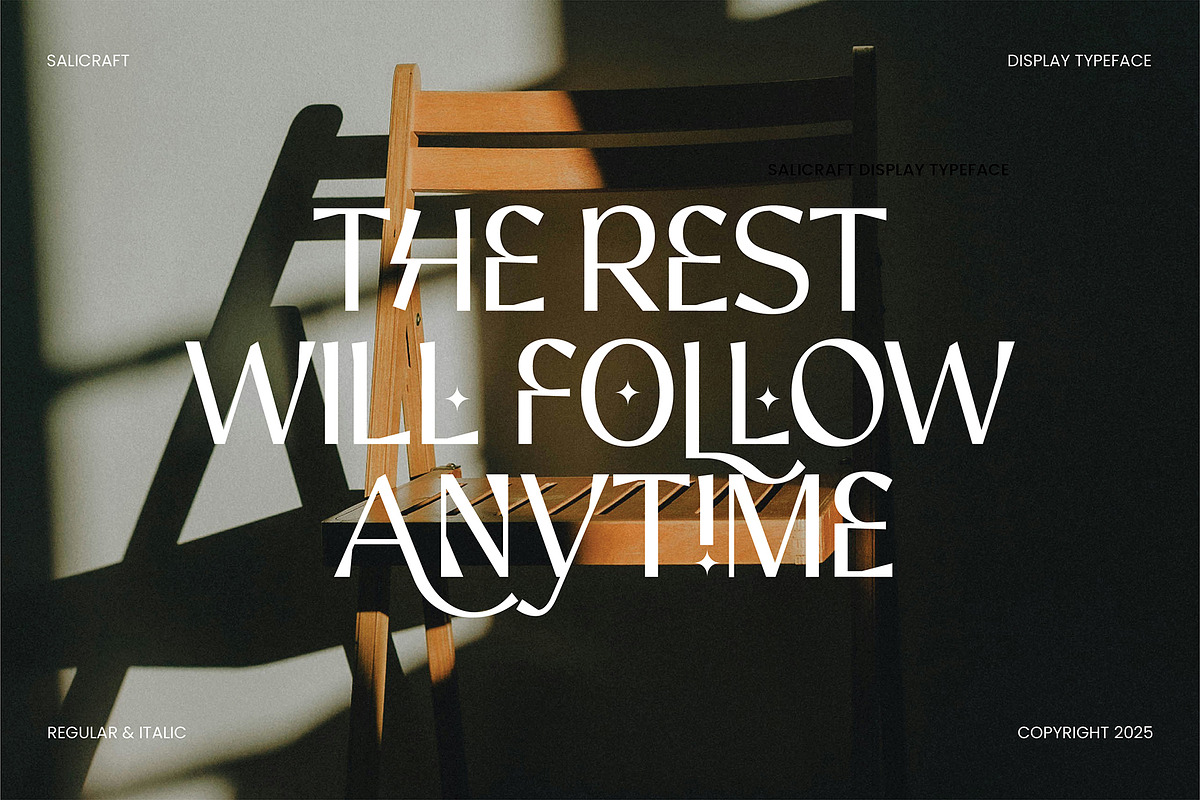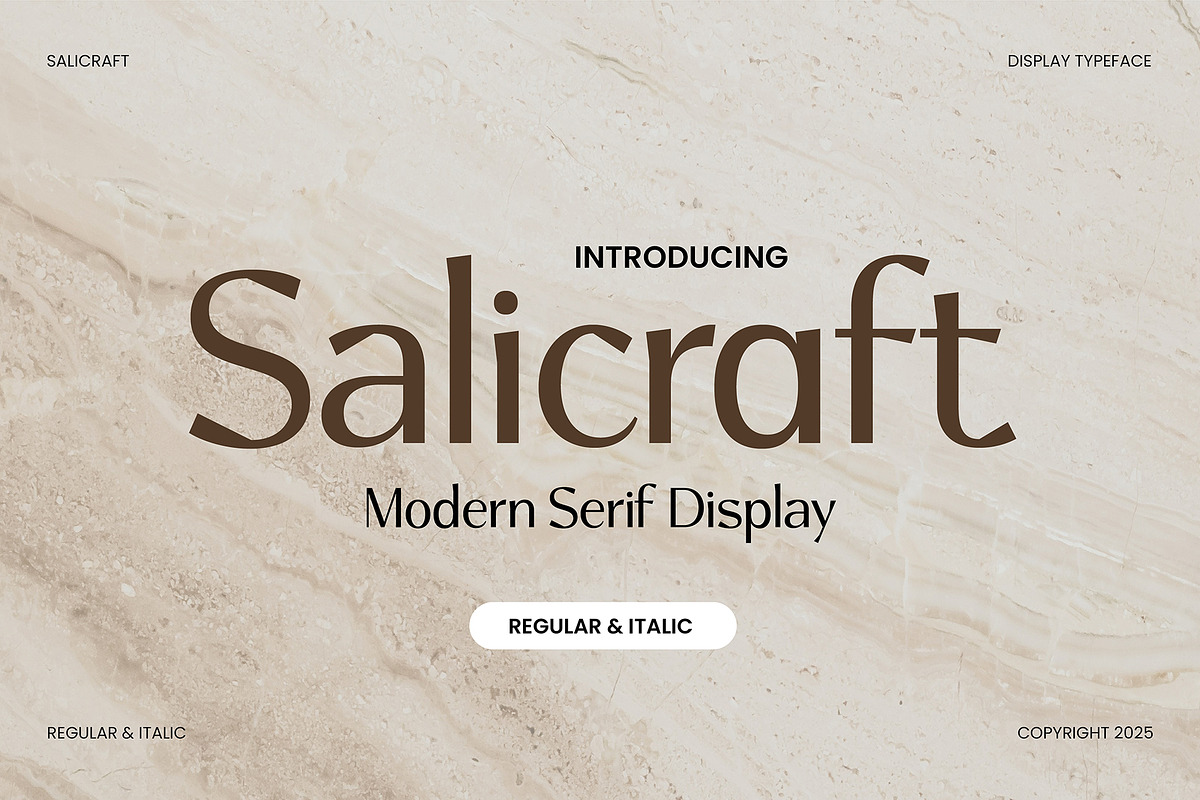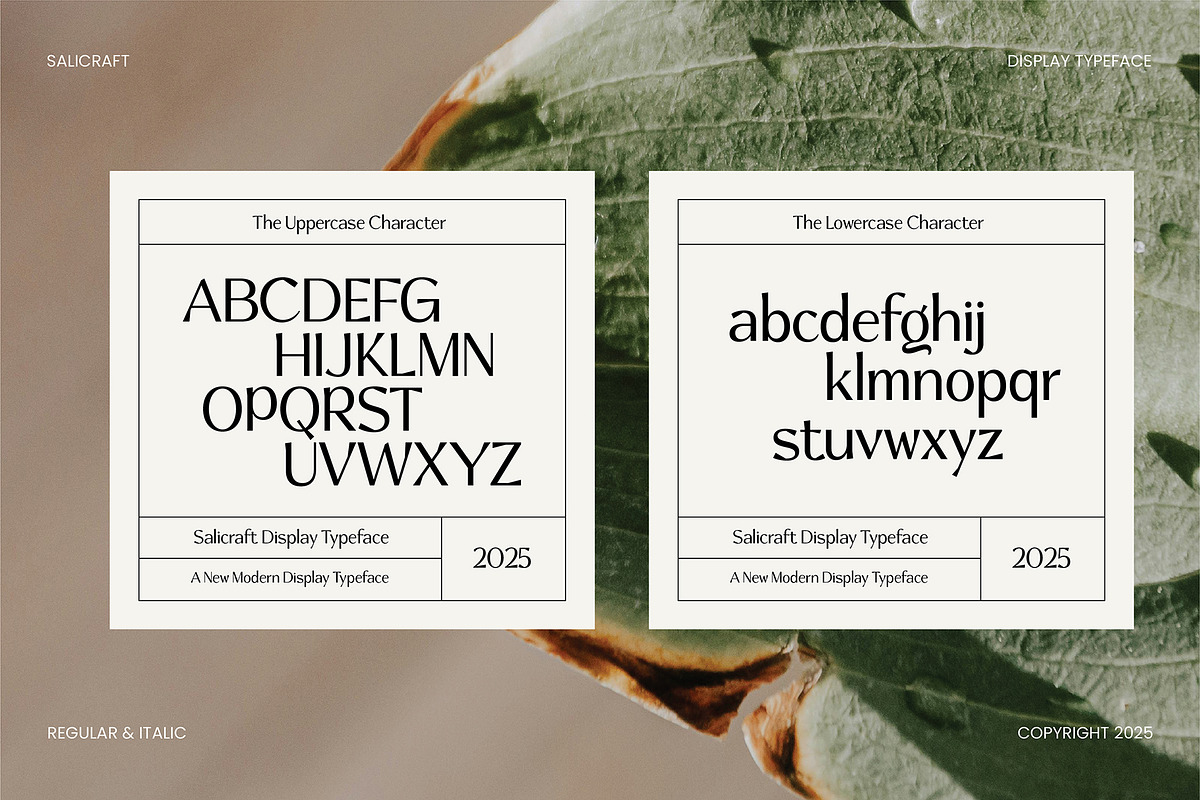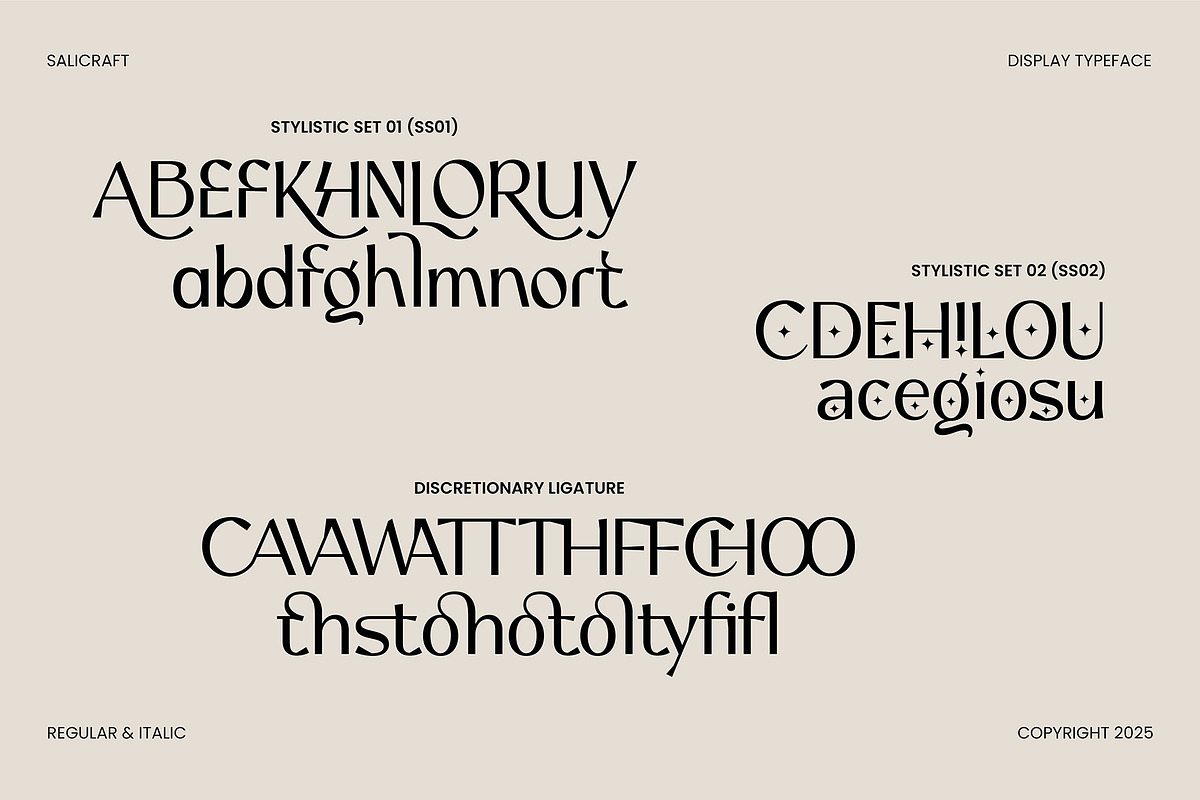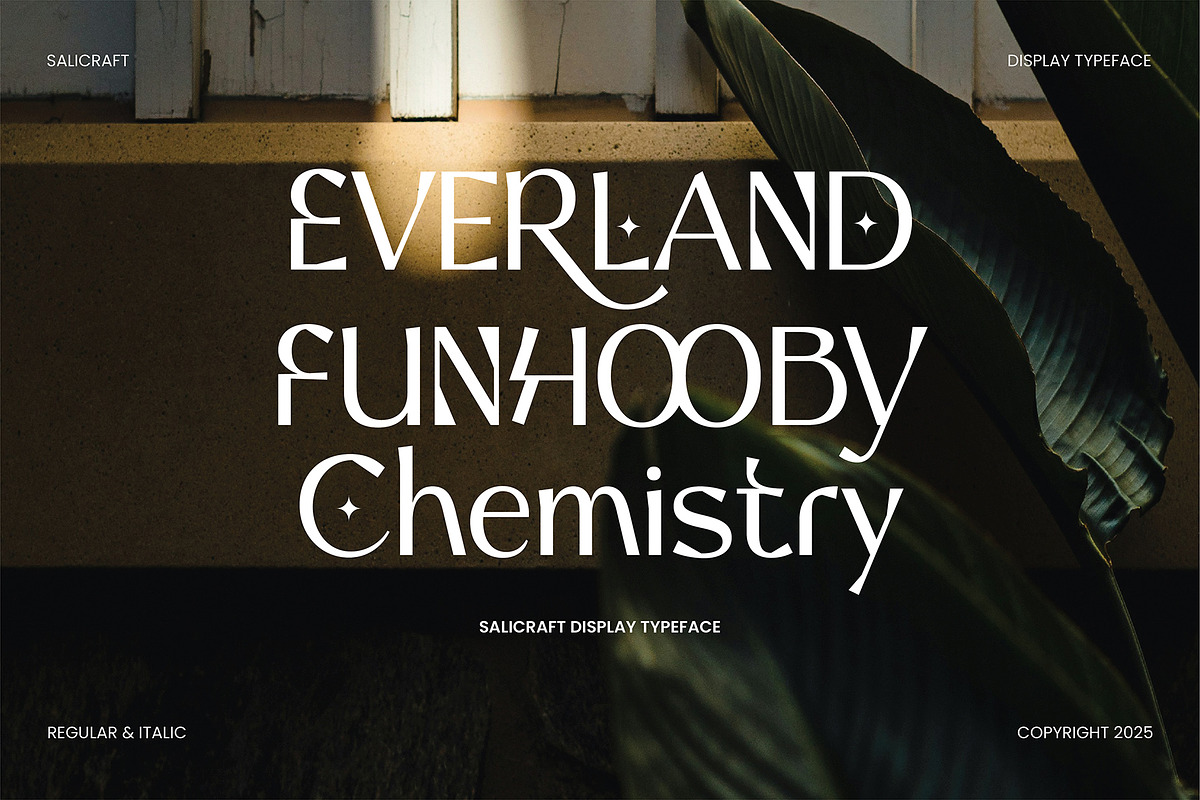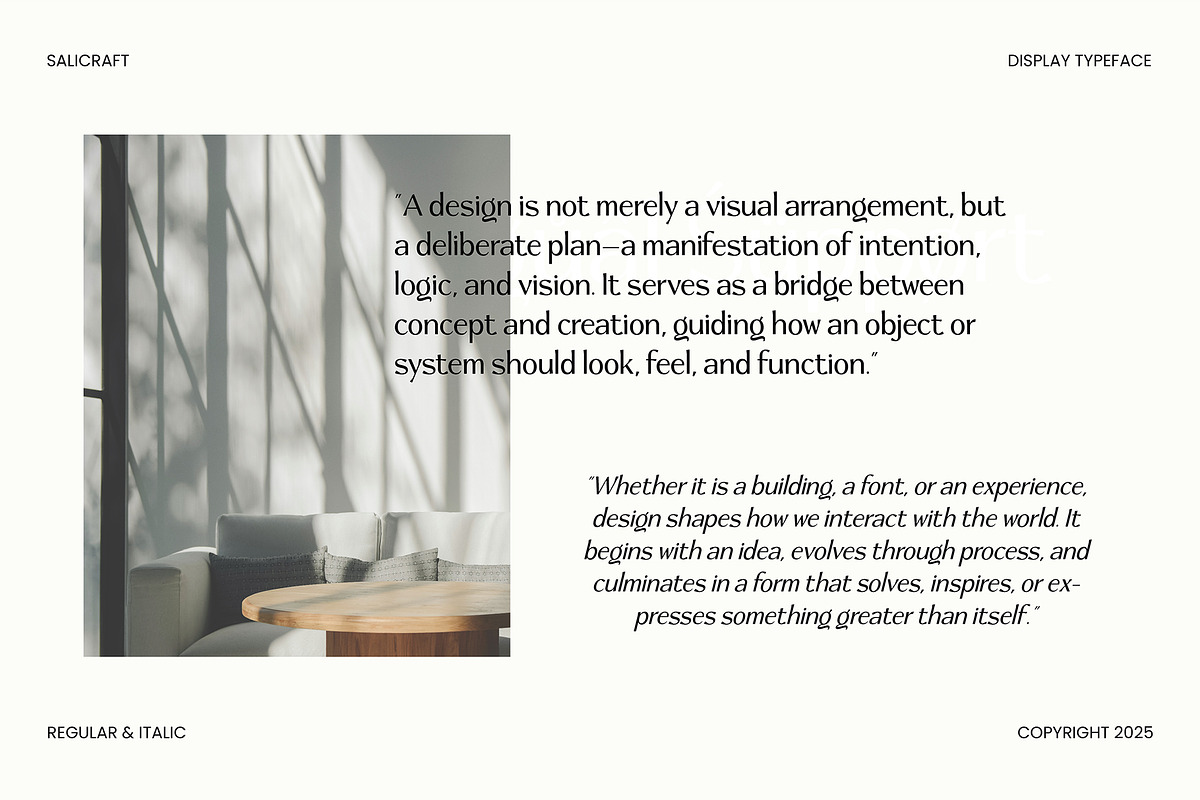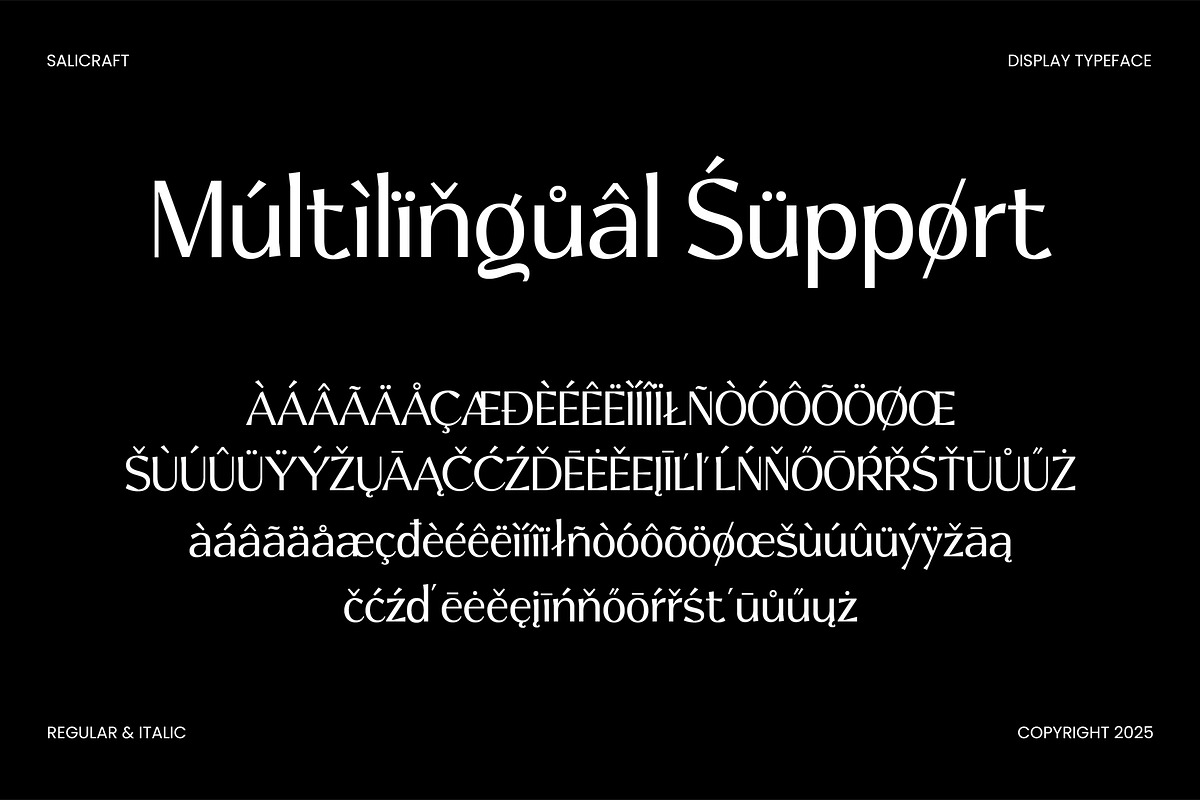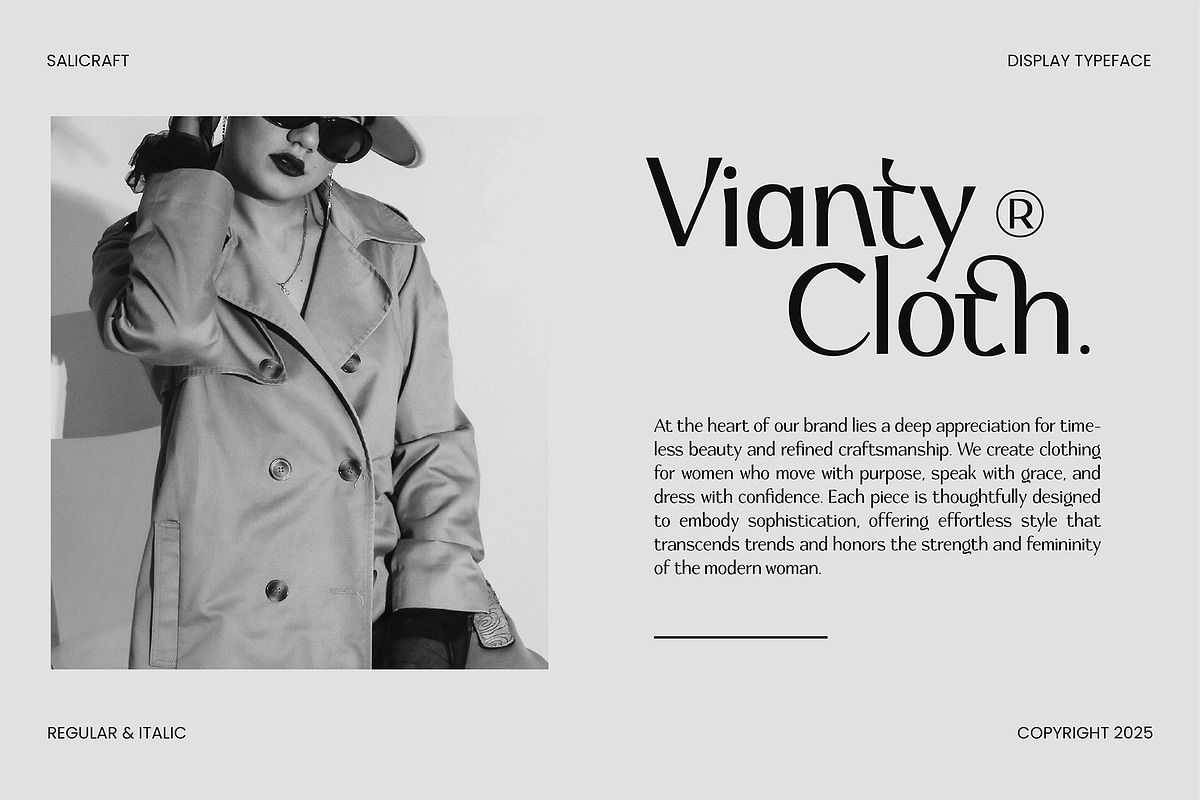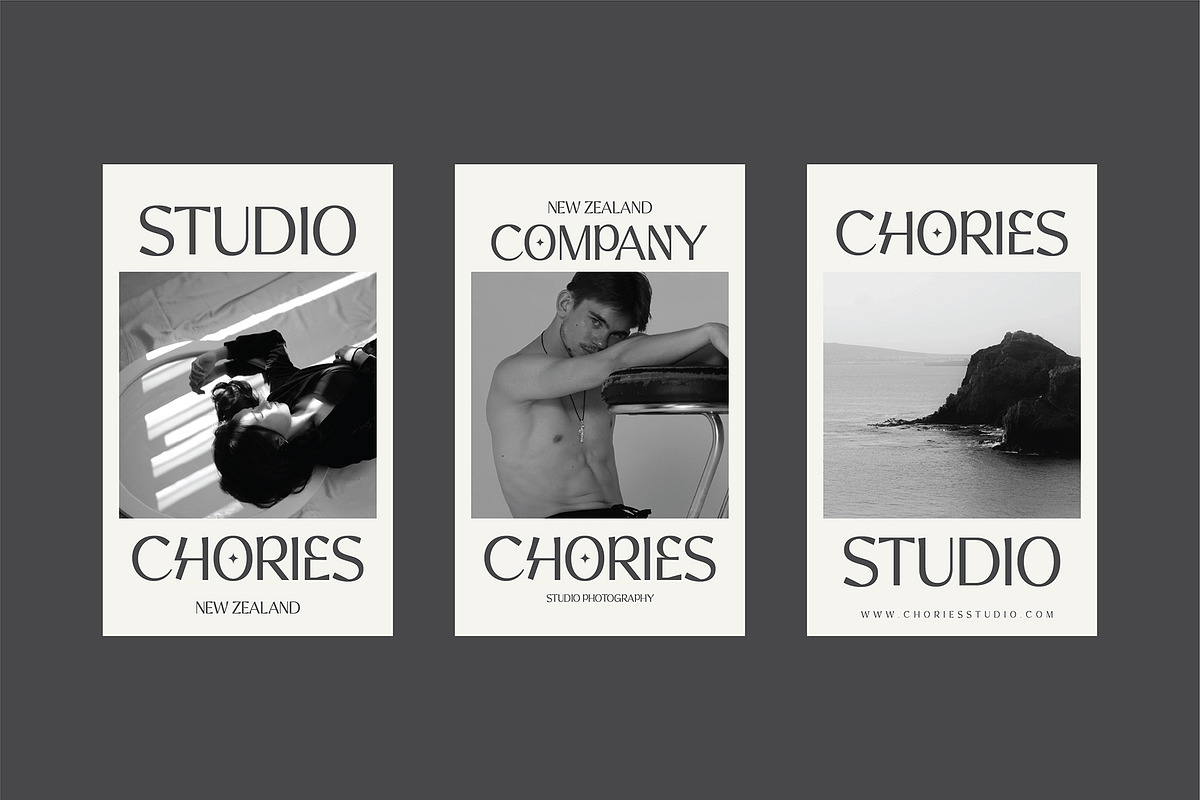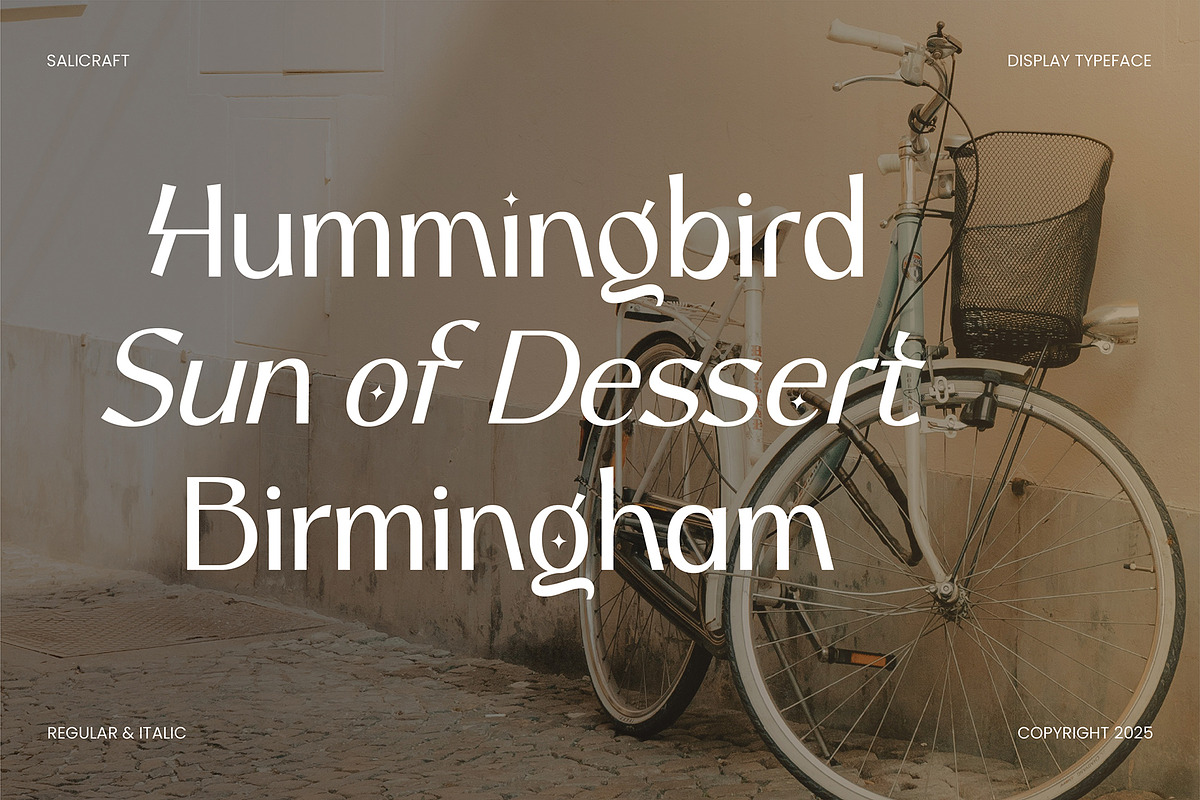
Salicraft
Salicraft is a font with a playful and casual handwritten appearance. Its characters look like they were written freely and relaxed, giving an informal and friendly feel. This font features uneven line thickness and slightly tilted letter shapes, creating a dynamic and lively impression.
Salicraft is perfect for designs that require a personal and creative touch, such as invitations, greeting cards, posters, or projects.